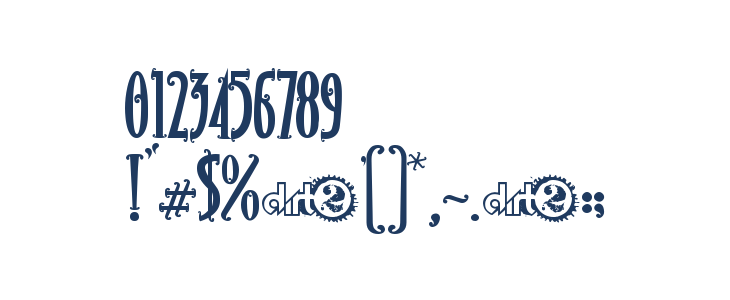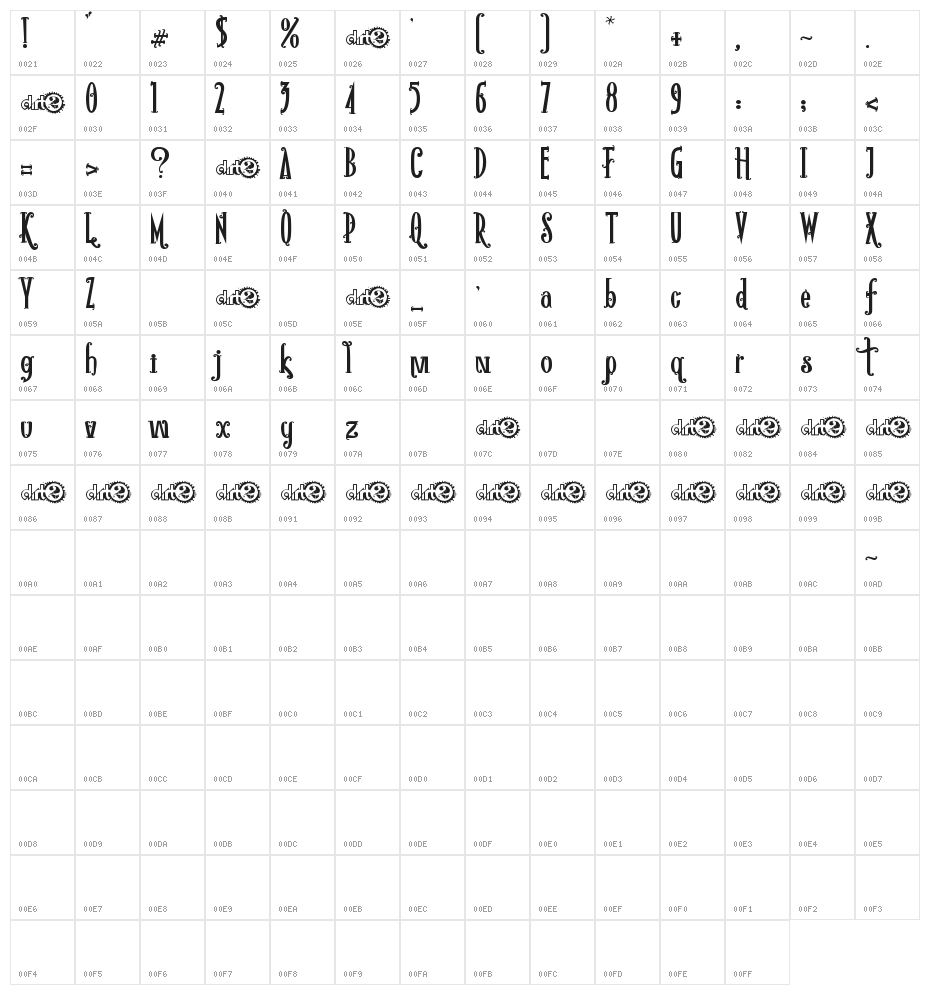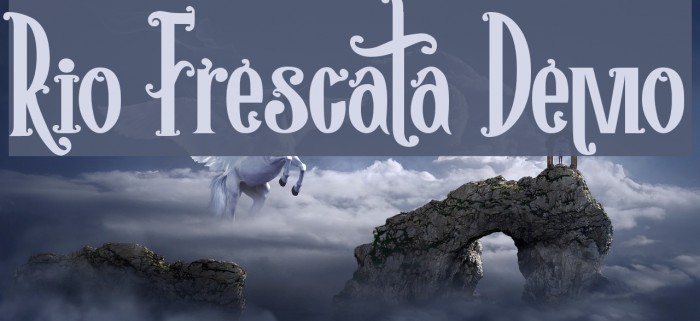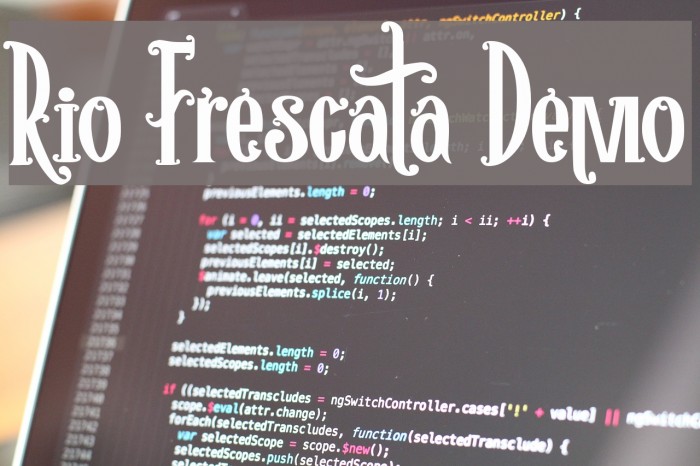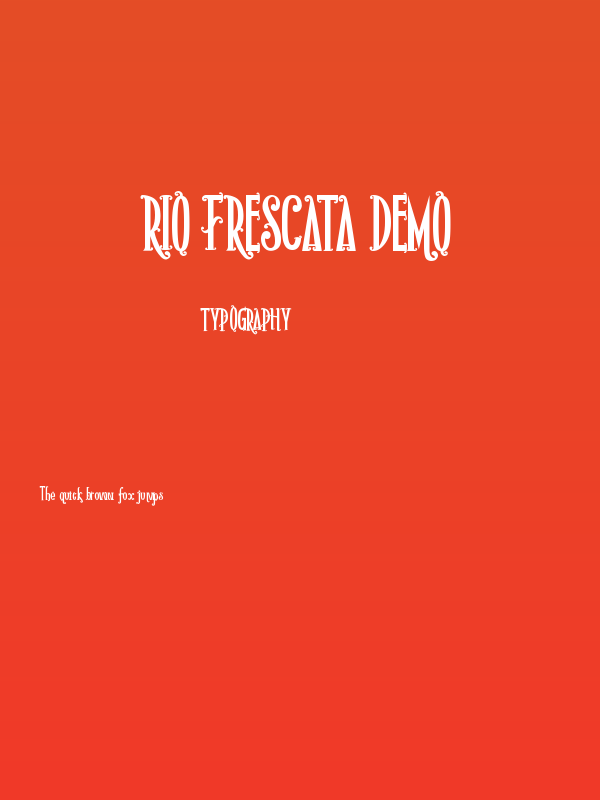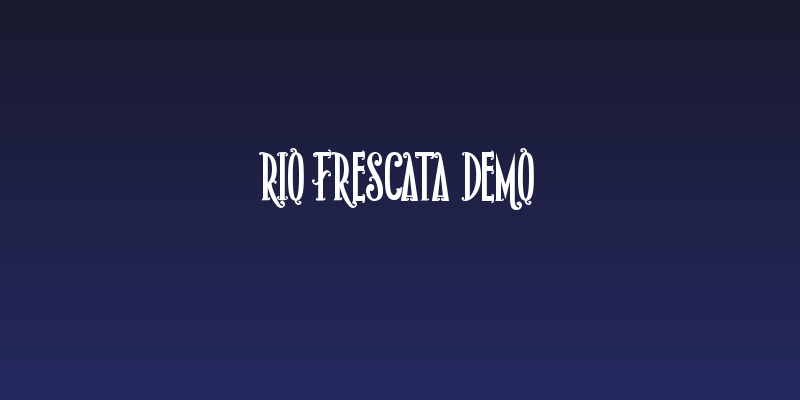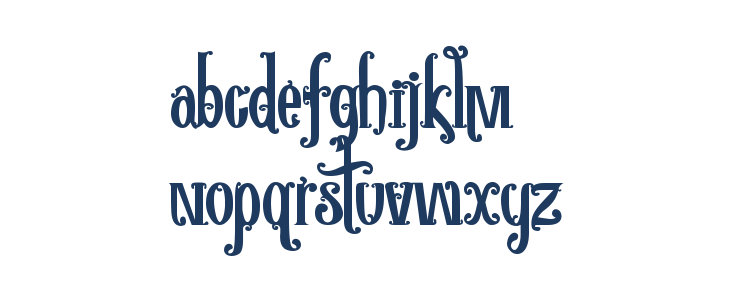
Rio Frescata Demo Font
Rio Frescata Demo Description
This font features a playful and decorative style, characterized by its unique and whimsical serifs. The letters are tall and narrow, with exaggerated curves and flourishes that give it a distinct personality. The uppercase and lowercase letters maintain a consistent style, with the lowercase being slightly more compact. Numbers and special characters are designed to match the overall aesthetic, making it suitable for creative and artistic projects. The font's ornate details make it stand out, ideal for capturing attention in headlines or logos.